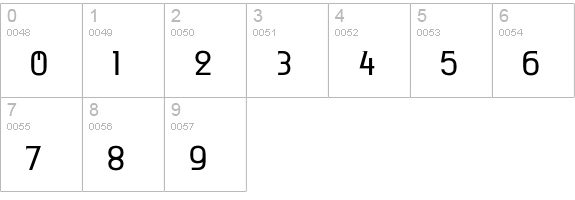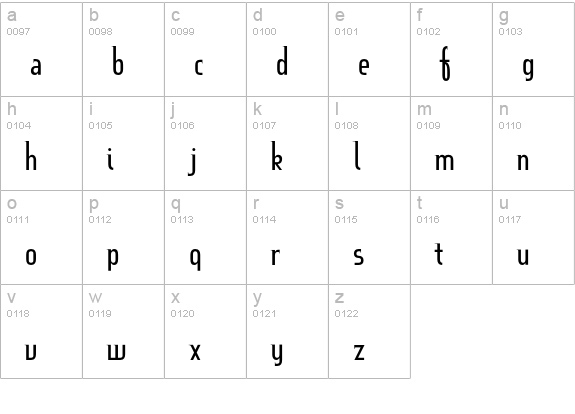
BruhnScript-Straightened Font Details
BruhnScript-Straightened font is a beautifully designed typeface that seamlessly blends elegance with a modern touch. This font features clean, straightened lines that give it a unique and sophisticated look, making it perfect for a wide range of design projects. With its smooth curves and precise angles, BruhnScript-Straightened exudes professionalism and style. What sets BruhnScript-Straightened font apart is its versatility, making it suitable for various purposes such as branding, logos, invitations, packaging, and more. Whether you're aiming for a classic or contemporary aesthetic, this font will elevate your design and leave a lasting impression on your audience. The best part is that BruhnScript-Straightened font is available for free download at FontsMarket.com. So, if you're looking to add a touch of refinement to your next project without breaking the bank, look no further than BruhnScript-Straightened font. Download it today and let your creativity shine with this stunning typeface.